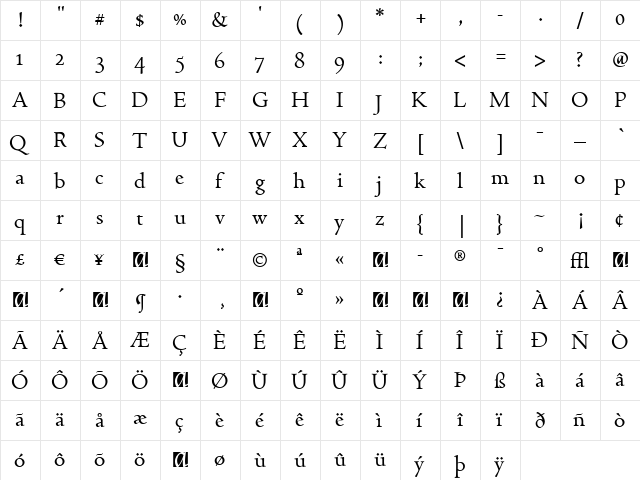
Spira-Regular Regular
| Designer | Andy Stockley |
Design Context for Spira-Regular Typeface
Spira-Regular is a composed and adaptable typeface that performs quietly and consistently across a wide range of design contexts.